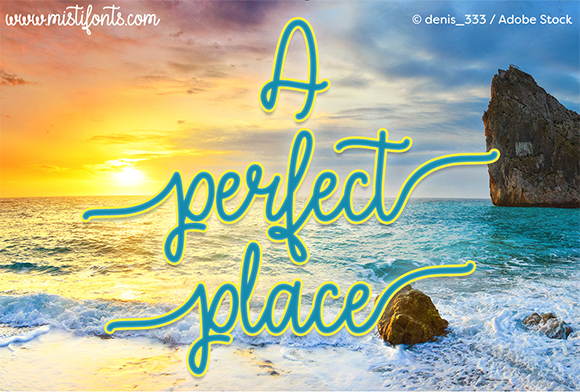
HomeScript FontsA Perfect Place Font Script Fonts A Perfect Place Font FacebookXPinterestWhatsApp About A Perfect Place Font A Perfect Place is a pretty, monoline script font that is perfect for your craft and design projects! DOWNLOAD NOW People also explored Ayappe Font The Fantastic Font Sweet Jelly Font Austry Royal Font Lighthouse Script Font Romances Font Billowy Font Delmonte Hunters Font Sieralova Font 346 0 TagsA Perfect Place Font Previous articleMeutuah FontNext articleLadybugs Font LEAVE A REPLY Cancel reply Comment: Please enter your comment! Name:* Please enter your name here Email:* You have entered an incorrect email address! Please enter your email address here Website: Save my name, email, and website in this browser for the next time I comment. Personal Use Free New Normal Personal Use Free Read more about this font Xplor Personal Use Free Read more about this font Zephan Personal Use Free Read more about this font Imelda Personal Use Free Read more about this font BLOG Using Fonts in Digital Marketing: Tips to Strengthen Your Brand Identity In the realm of digital marketing, every visual element plays a crucial role in shaping a brand's identity, and fonts are no exception. The... Best Fonts for YouTube Videos: Make Your Thumbnails Stand Out Transform Your Website: Elevate Your Typography with 7 Best Web Font Generators Where to Buy American Fonts Online in 2024